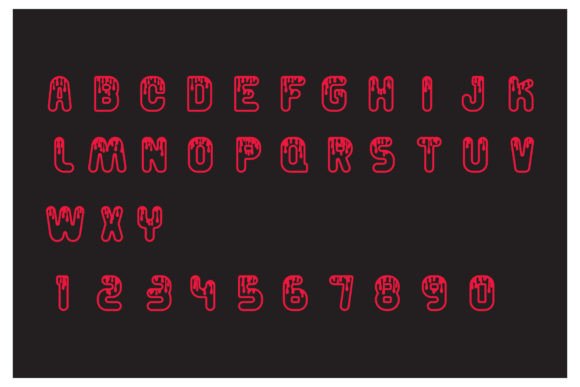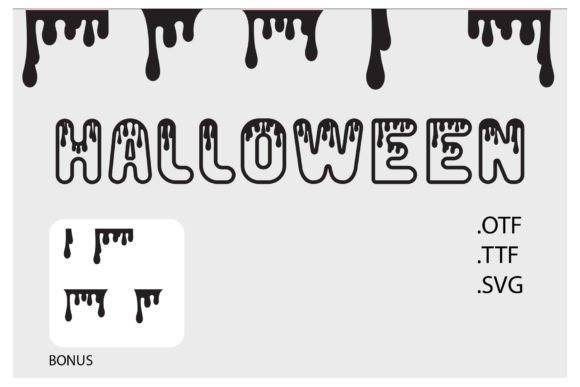
The Drip Font: A Spooky, Decorative Delight for Creatives
I still remember the design project that led me to discover the Drip font. I was working on a Halloween-themed stationery set for a client, and I was struggling to find the perfect font to capture the spooky, playful vibe. That’s when I stumbled upon Drip, and it instantly became the star of the show. In this article, I’ll share my experience with this unique font, its features, and how to make the most of it in your designs.
An Honest Review of Drip Font
What I Love About Drip Font
- ✨ Unique, hand-crafted design with a spooky-cool aesthetic
- ✅ Highly versatile, suitable for various design projects, from letterheads to titles and stationery
- 🎃 Perfect for Halloween-themed designs, but also great for other spooky or mystical projects
While Drip font is an amazing decorative font, it’s not without its quirks. Here are a few things to keep in mind:
- 🤔 May not be suitable for body text or long paragraphs, as it’s designed for headlines and titles
- ⚠️ Some characters, like punctuation marks, might be a bit inconsistent in their design
The Backstory of Drip Font
According to its designer, Drip font was inspired by the eerie, mystical atmosphere of old, abandoned mansions. The designer wanted to create a font that would capture the essence of spooky, Halloween-themed designs, while still being versatile enough for other creative projects.
| What is the Drip font best suited for? | The Drip font is perfect for decorative designs, such as titles, headlines, and stationery, especially for Halloween-themed projects or other spooky, mystical designs. |
| Is Drip font suitable for body text? | No, Drip font is not recommended for body text, as it’s designed for headlines and titles. Its unique design and quirks might make it difficult to read in longer paragraphs. |